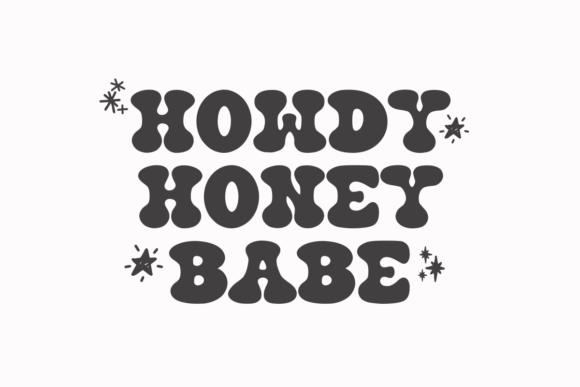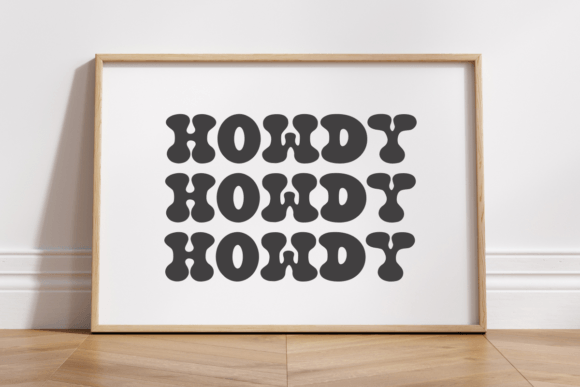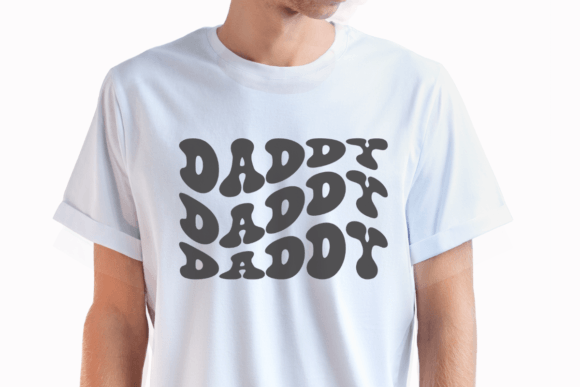
Introduction to Kinder Howdy Font
Have you ever stumbled upon a font that instantly transports you back to a bygone era? For many designers, this experience is a treasure trove of inspiration, and the Kinder Howdy Font is one such discovery that’s sure to captivate your senses. Its retro-styled, handcrafted design exudes authenticity and charm, making it a valuable asset for any creative project.
Whether you’re working on a distinctive brand identity or a crafty DIY project, Kinder Howdy Font seamlessly infuses the old-school vibe, elevating your designs to new heights. Its versatility is unmatched, and with a free download available, you can experience its high-quality design firsthand. From clothing designs to tumblers and quotes, this font’s standout appeal is sure to leave a lasting impression.
As a design resource, Kinder Howdy Font offers a transparent background, allowing you to layer and customize your designs with ease. With its unique curves and lines, this font invites you to create more, making it an invaluable addition to your design arsenal.
Key Features of Kinder Howdy Font
• High-quality design resource ideal for creative projects, offering a unique and playful touch.
• Includes a range of characters, including uppercase and lowercase letters, numbers, and punctuation marks.
• Designed with a Western or Texas-inspired theme, perfect for projects related to the American West or cowboy culture.
Honest Review: Kinder Howdy Font
I recently stumbled upon the Kinder Howdy Font while searching for a high-quality design resource for a creative project. I was pleasantly surprised by the clean and rustic feel of this font, perfect for adding a touch of nostalgia to any design.
Here are some key features I appreciate about the Kinder Howdy Font:
• High-quality design that’s perfect for creative projects
One limitation I’ve noticed: ⚠️ The font may not be suitable for extremely formal or professional designs, as its rustic feel may come across as too casual. However, for most creative projects, the Kinder Howdy Font is an excellent choice.
Tips for Getting the Most Out of Kinder Howdy Font
To get the most out of the Kinder Howdy Font, use it with a transparent background to create a unique and eye-catching design. You can also experiment with different font sizes and colors to create a customized look.
The Kinder Howdy Font is perfect for creating custom logos, graphics, and typography for your next creative project. It’s also great for adding a personal touch to your presentations and documents.